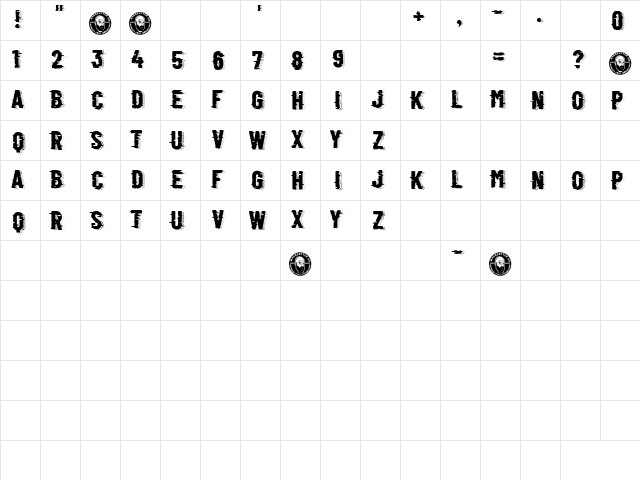
Retro Computer Regular
| Designer | Woodcutter Manero |
Design Context for Retro Computer Typeface
Retro Computer has the warm character of retro typography — evoking diners, record sleeves, and the golden age of print advertising.